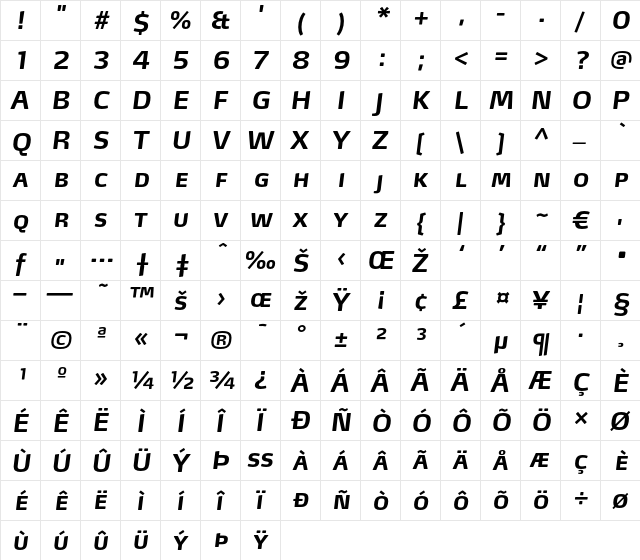
MaxLF-BoldItalicSC Regular Font Preview
MaxLF-BoldItalicSC Regular
MaxLF-BoldItalicSC Regular Font Details
Design Context for MaxLF-BoldItalicSC Typeface
MaxLF-BoldItalicSC offers clean, dependable letterforms without strong stylistic allegiance, making it a practical choice for designers who need flexibility. The dynamic lean of this cut emphasises speed and emphasis in any layout. The heavy weight commands attention and anchors typographic hierarchies.
Pro Tip: Use MaxLF-BoldItalicSC for emphasis, pull quotes, and subheadings where its slanted energy can add rhythm to the layout.